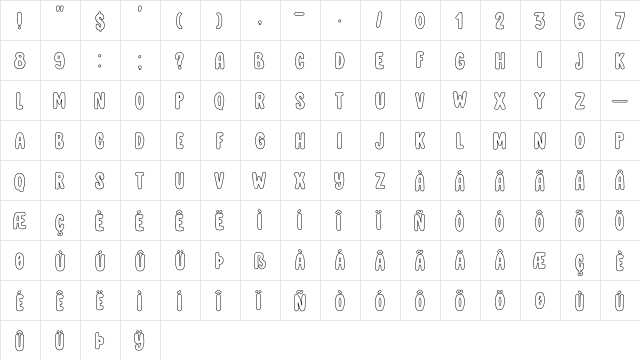
DK Cool Daddy Outline Regular
| Foundry | David Kerkhoff |
| Designer | David Kerkhoff |
Design Context for DK Cool Daddy Outline Typeface
DK Cool Daddy Outline is built around its visual character rather than neutral utility — its distinctive forms are designed to make an impression at display sizes.
Font Pairing: Pair with a clean neutral sans-serif for body copy to let DK Cool Daddy Outline's character lead without overwhelming the composition.
Pro Tip: Use DK Cool Daddy Outline exclusively at display sizes — it was designed to be seen, not read at length. Let a neutral companion handle body copy.